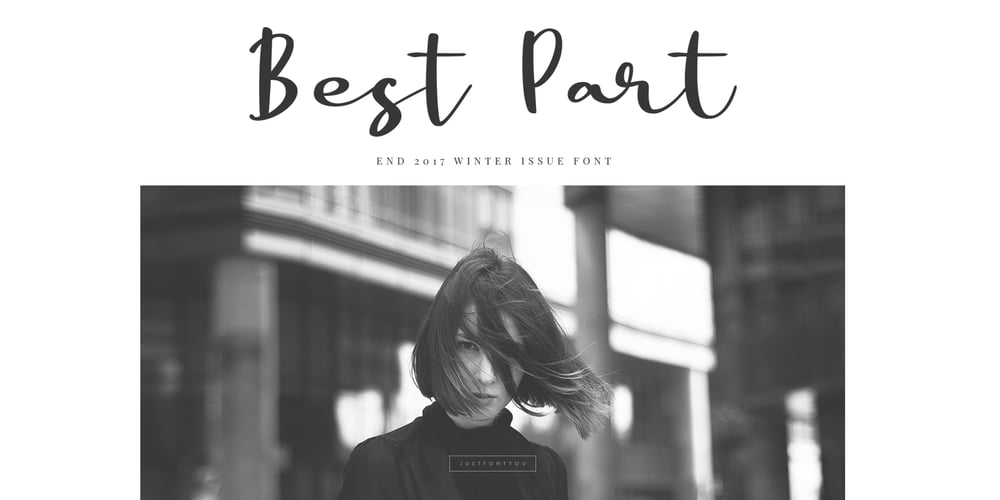
Best Part
Best Part Font Family was designed by Ian Irwan Wismoyo and published by Just Font You. Best Part contains 1 styles and family package options. Best Part, an elegant yet casual fancy script typeface inspired by the casual fashion lookbook and classy feminine stuff nowadays. Perfectly fit for branding, logo, wedding things, greeting cards, fashion, lookbook, marketing promotion, anytime you want to look fancy elegant but still casual.